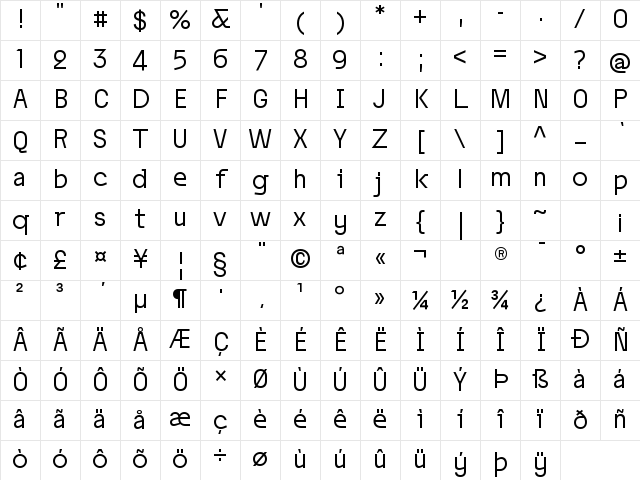
Tosh B Regular
Foundry: BlackFoundry
Designer: J￿mie Hornus, Ilya Naumoff, benjaminn Blaess
Design Context for Tosh B
Tosh B is a composed and adaptable typeface that performs quietly and consistently across a wide range of design contexts.